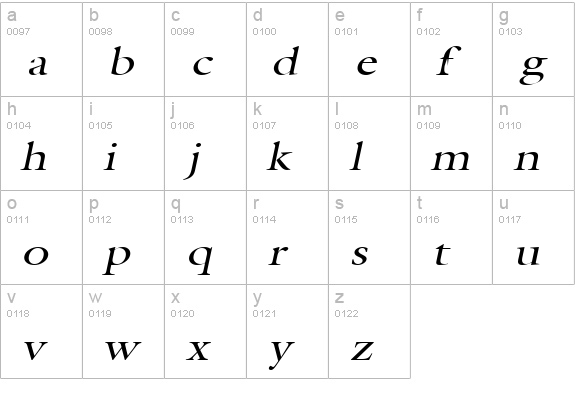
Coverdale-Extended Italic Font Details
Coverdale-Extended Italic is a distinctive, extended-width, italic variant in the Coverdale typeface family \xE2\x80\x94 well suited to design and typography projects.
Coverdale-Extended Italic is a sophisticated and elegant font that exudes a sense of modernity and refinement. Its sleek design and elongated letterforms make it ideal for adding a touch of sophistication to any project. The italic styling adds a sense of flair and movement to the text, making it perfect for use in headings, titles, and other prominent text elements. What makes Coverdale-Extended Italic even more appealing is that it is available for free download at FontsMarket.com. This means that you can easily incorporate this stylish font into your designs without breaking the bank. Whether you're working on a branding project, a website design, or a print publication, Coverdale-Extended Italic is sure to elevate your work and make a lasting impression. Download it today and see how this font can enhance your projects with its timeless elegance.